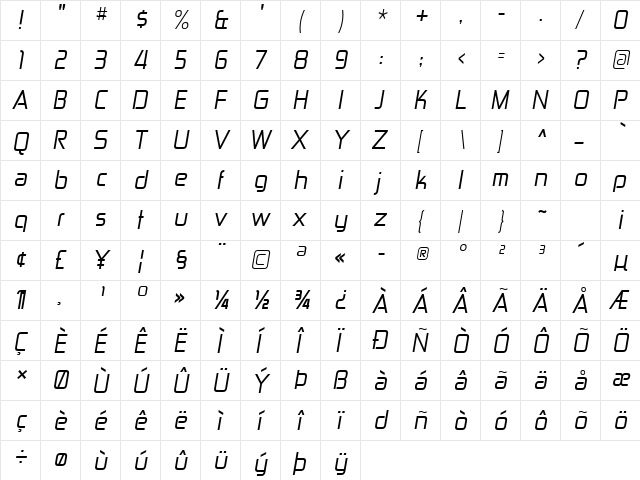
Zekton Rg Italic Font Preview
Zekton Rg Italic
Design Context for Zekton Rg Typeface
Zekton Rg is a composed and adaptable typeface that performs quietly and consistently across a wide range of design contexts. The dynamic lean of this cut emphasises speed and emphasis in any layout.
Pro Tip: Use Zekton Rg for emphasis, pull quotes, and subheadings where its slanted energy can add rhythm to the layout.